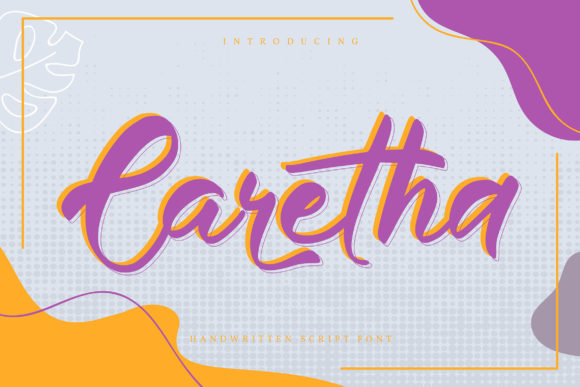
Introducing Caretha Font: The Perfect Brushed Handwritten Font for Crafty Designs
Are you a designer or crafter looking for a unique and original font to elevate your creative projects? Look no further than Caretha Font, a lovely brushed handwritten font that is sure to appeal to a wide range of crafty ideas. With its distinctive look and feel, Caretha Font is the perfect choice for letterheads, titles, stationery, and so much more.
What is Caretha Font?
Caretha Font is a carefully crafted brushed handwritten font that boasts a warm and inviting personality. Its original look is reminiscent of handwritten letters and notes, making it perfect for designs that require a personal touch. The font’s unique texture and brush strokes give it a distinctive feel that sets it apart from other fonts.
Key Features of Caretha Font
- Brushed Handwritten Look: Caretha Font features a beautiful brushed handwritten look that is perfect for crafty designs.
- Unique Texture: The font’s unique texture and brush strokes give it a distinctive feel that adds a personal touch to any design.
- Versatile: Caretha Font is versatile and can be used for a wide range of crafty ideas, from letterheads and titles to stationery and more.
- Easily Readable: Despite its handwritten look, Caretha Font is easily readable, making it perfect for designs that require a personal touch without sacrificing legibility.
Uses for Caretha Font
Caretha Font is perfect for a wide range of crafty designs, including:
- Letterheads: Add a personal touch to your letterheads with Caretha Font’s unique brushed handwritten look.
- Titles: Use Caretha Font to create eye-catching titles for your designs, from posters to social media graphics.
- Stationery: Elevate your stationery designs with Caretha Font’s warm and inviting personality.
- Branding: Use Caretha Font to create a unique and memorable brand identity that sets you apart from the competition.
- Packaging: Add a personal touch to your packaging designs with Caretha Font’s distinctive look and feel.
Why Choose Caretha Font?
So why choose Caretha Font for your crafty designs? Here are just a few reasons:
- Unique Look: Caretha Font’s brushed handwritten look is truly unique and will set your designs apart from the competition.
In conclusion, Caretha Font is a lovely brushed handwritten font that is perfect for crafty designs. With its unique look and feel, Caretha Font is sure to appeal to a wide range of designers and crafters. Whether you’re looking to create letterheads, titles, stationery, or more, Caretha Font is the perfect choice. So why wait? Download Caretha Font today and start elevating your designs with its distinctive look and feel.